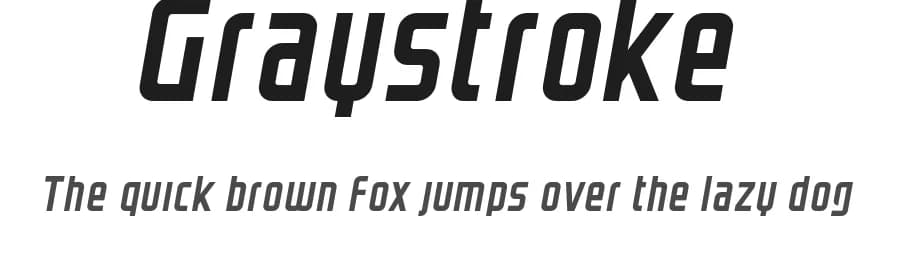
About Graystroke Font
Graystroke is a sans-serif font designed by Néstor Delgado. It includes 140 glyphs, a regular weight, OTF (CFF) format, and 161 languages. Graystroke is free to download; check the license details on this page before commercial use. Sans-serif fonts like Graystroke work best for clean body text, user interfaces, branding, and modern layouts.
Graystroke Font is a versatile sans-serif font that works for both headings and body text. Pair it with a contrasting serif or slab serif font to add visual interest and a clear distinction between titles and body copy.
Graystroke Font
Graystroke Font is a sans serif typeface by Néstor Delgado, ideal for logos, invitations, branding, and creative projects.